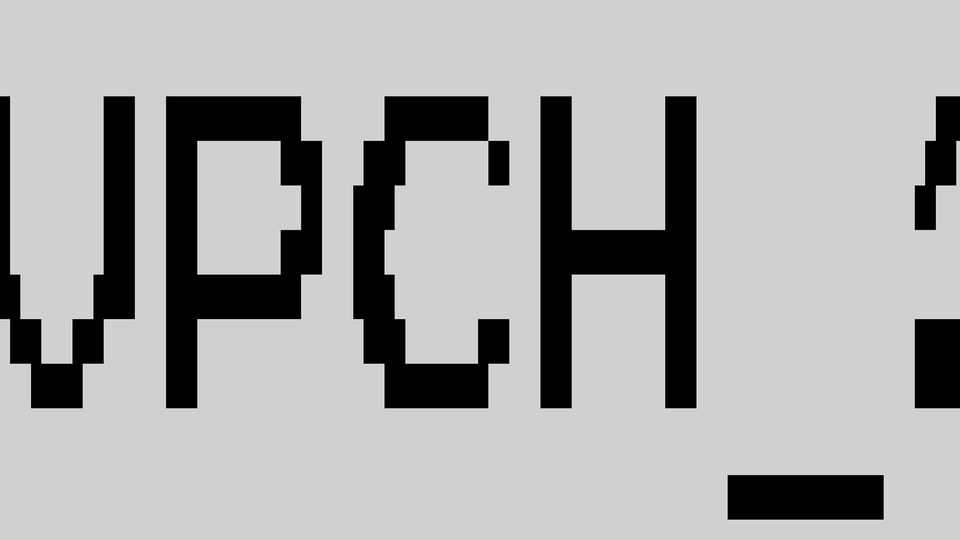
Download VPCH_2 font, a not just pixelish typeface. VPCH_2 is a multitasking typeface, balancing on the verge of “machine” and furious stubbornness, mixed with his own vision of the world.